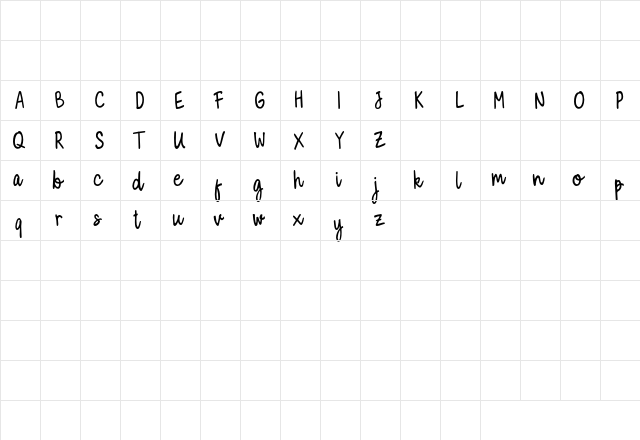
Milky Cookies Script Demo Regular
Design Context for Milky Cookies Script Demo Typeface
Milky Cookies Script Demo flows with the natural rhythm of handwritten lettering, making it ideal for designs that call for warmth and personal expression.
Font Pairing: Combine Milky Cookies Script Demo with a simple geometric sans for maximum contrast — the tension between flowing curves and clean structure is a classic typographic pairing.
Pro Tip: Pair Milky Cookies Script Demo with a clean sans-serif for supporting text. The contrast between fluid script and geometric structure creates an elegant typographic hierarchy.